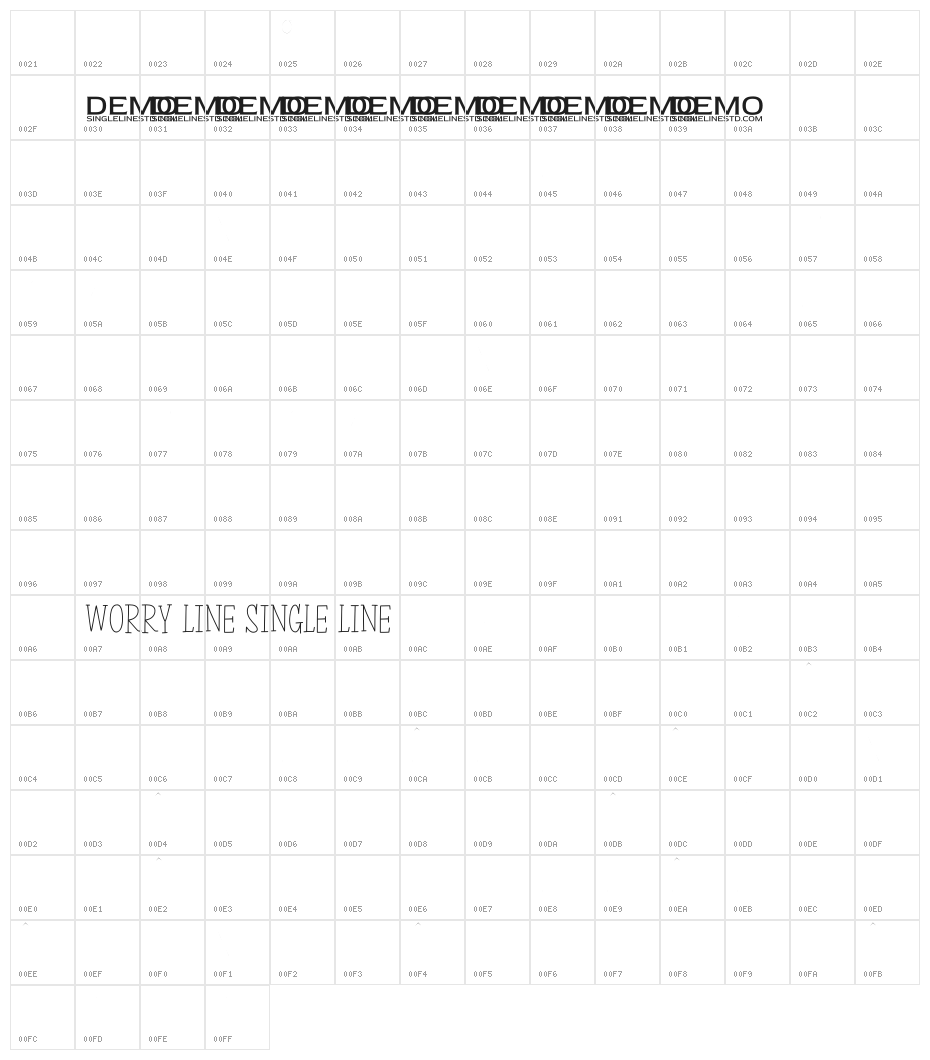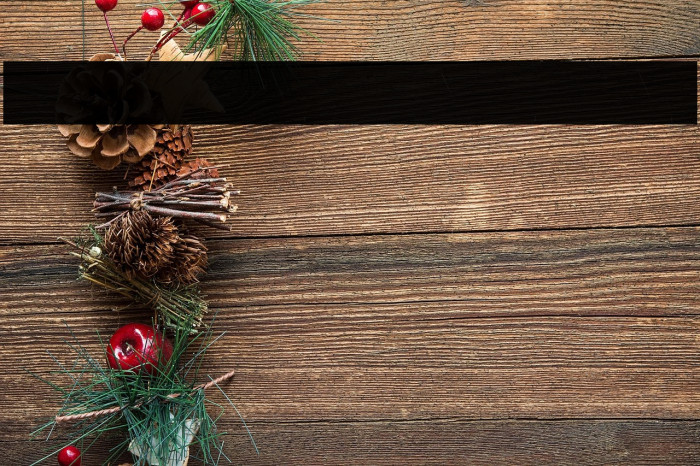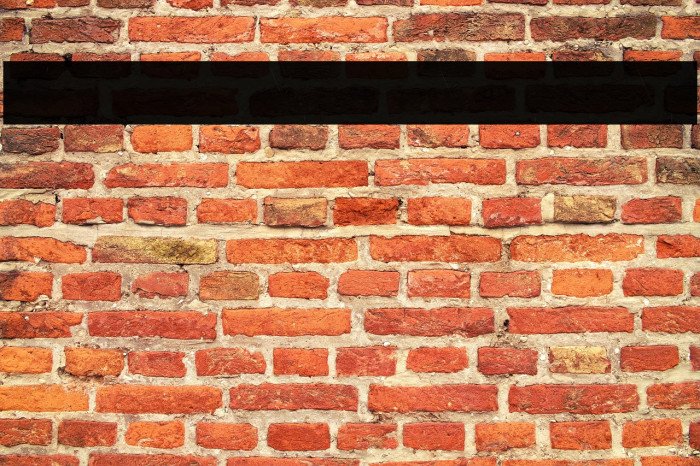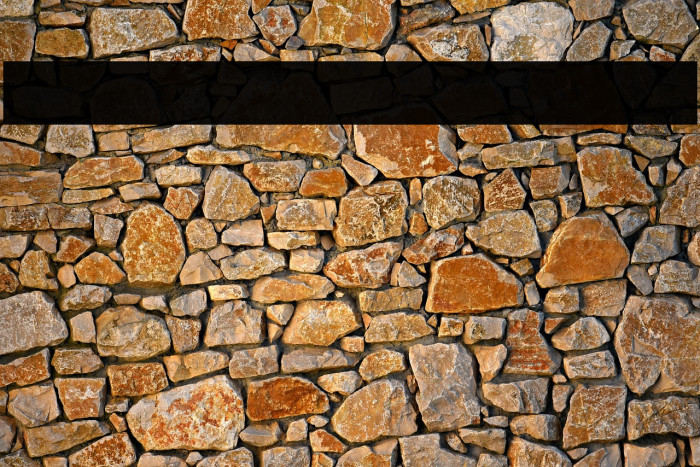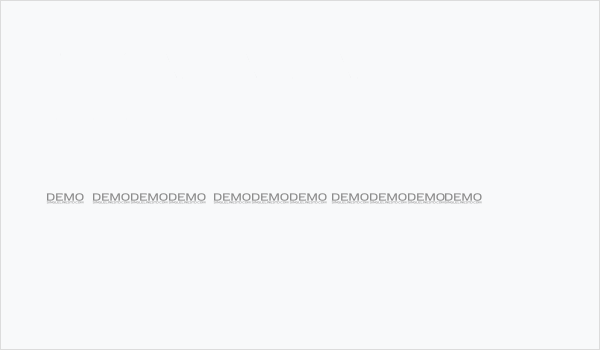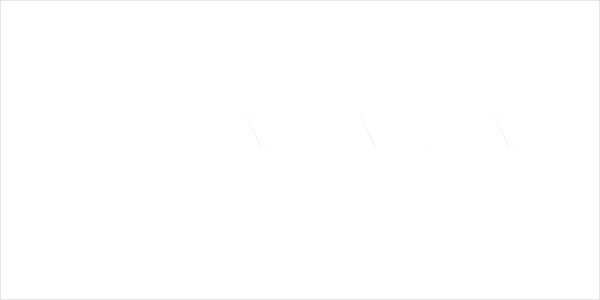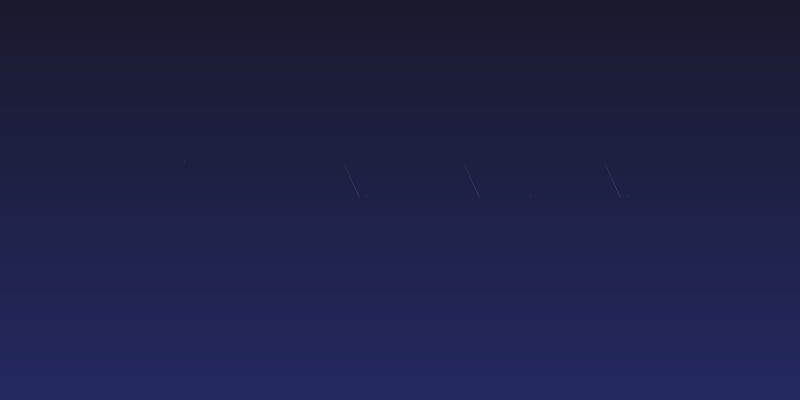
Worry Lines Single Line Font
Worry Lines Single Line Description
A minimalist, single-line sans-serif font with geometric letterforms and consistent stroke width, creating a clean and modern appearance. The characters are constructed from continuous, unbroken lines, giving a technical and precise feel.
| Overall Style | Modern, Minimalist, Technical |
| Use Case | Logos, Technical labels, Wireframes, Display text |
| Proposed Projects | Technical diagrams, architectural presentations, modern branding, minimalist posters, wireframe mockups. |